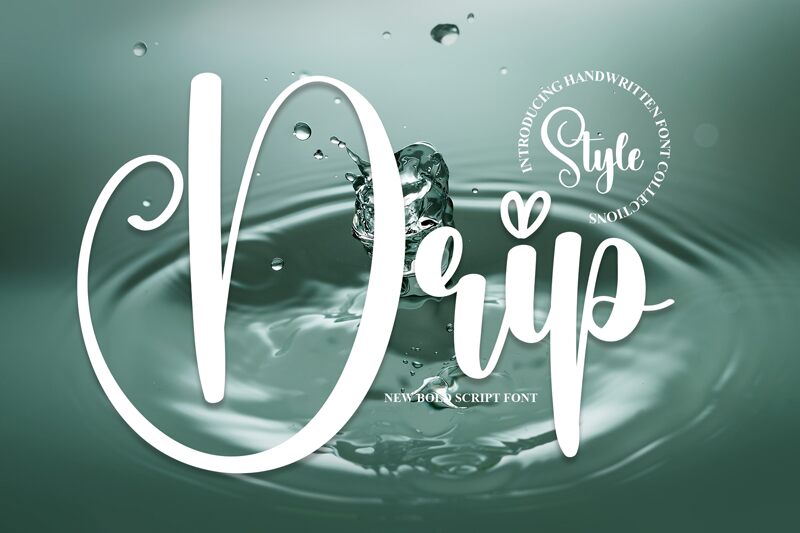
Drip
Drip, a masterful creation by Scratchones, is a calligraphy font that exudes elegance with a playful twist. Its semi-light weight lends an airy, delicate touch to the expressive flourishes that characterize each letter. The fluidity of Drip's strokes conjures images of ink gracefully dancing across the page, making it an exceptional choice for invitations, branding, and personalized stationery.
The font's aesthetic charm lies in its harmonious balance between whimsy and sophistication. With subtle variations in thickness and a natural flow, Drip captures the essence of traditional calligraphy while infusing modern flair into its design. Each character is crafted with meticulous attention to detail, ensuring that your project will stand out with its artistic allure.
Ideal for designers seeking to inject a touch of creativity into their work without sacrificing readability, Drip offers versatility across various mediums—be it digital graphics or print materials. Whether you're looking to elevate your wedding invitations or add character to your logo design, Drip promises to deliver an impactful visual statement that resonates with audiences seeking beauty and originality in typography.